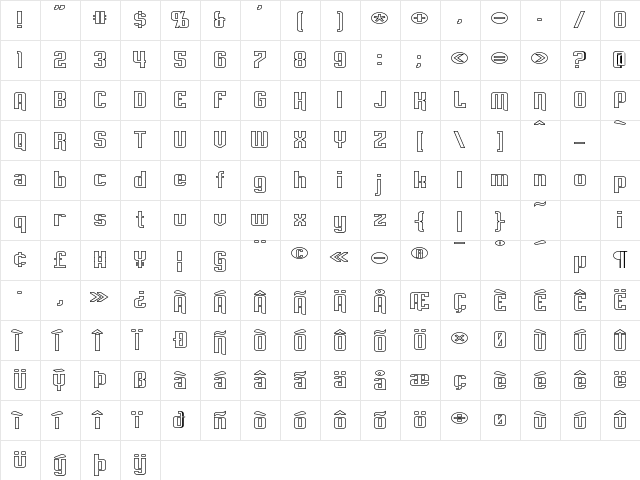
Empanada Expanded Outline Regular
| Foundry | Neale Davidson |
| Designer | Neale Davidson |
Design Context for Empanada Expanded Outline Typeface
Empanada Expanded Outline brings ornamental detail and strong personality to headlines and identities, where visual impact matters more than quiet functionality.
Font Pairing: Pair with a clean neutral sans-serif for body copy to let Empanada Expanded Outline's character lead without overwhelming the composition.
Pro Tip: Use Empanada Expanded Outline exclusively at display sizes — it was designed to be seen, not read at length. Let a neutral companion handle body copy.